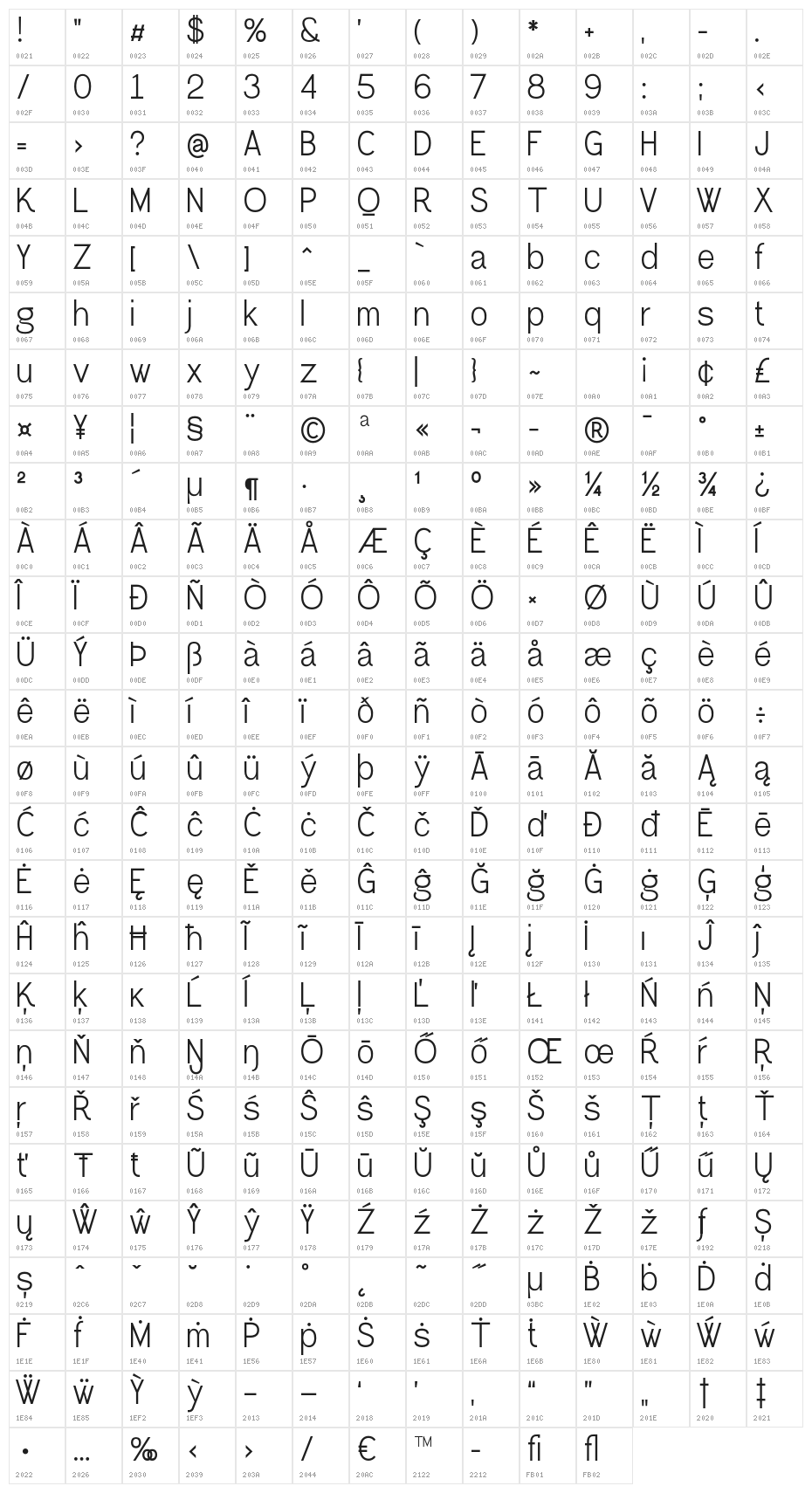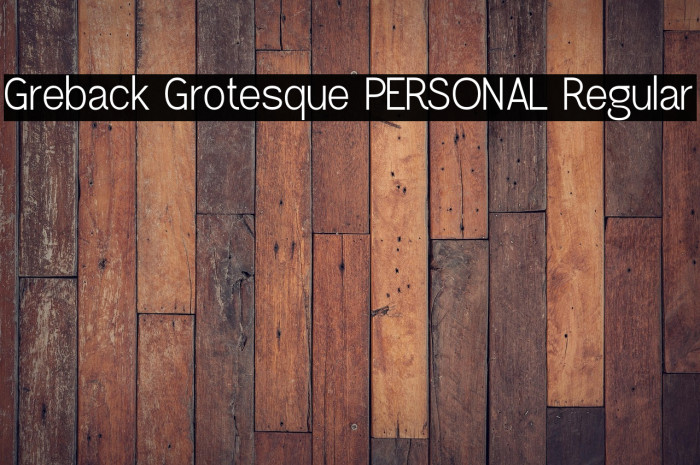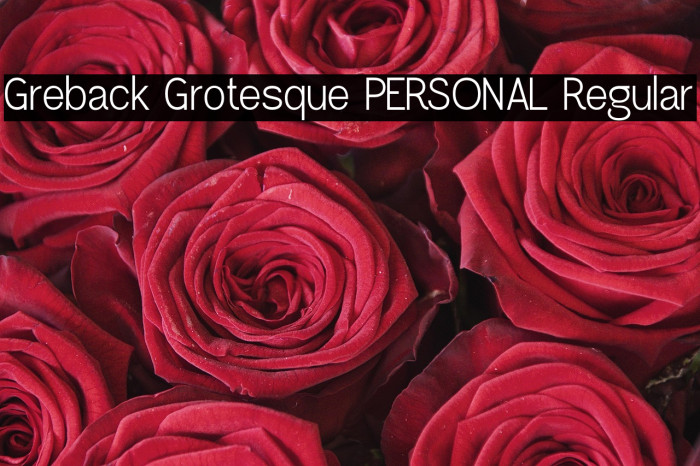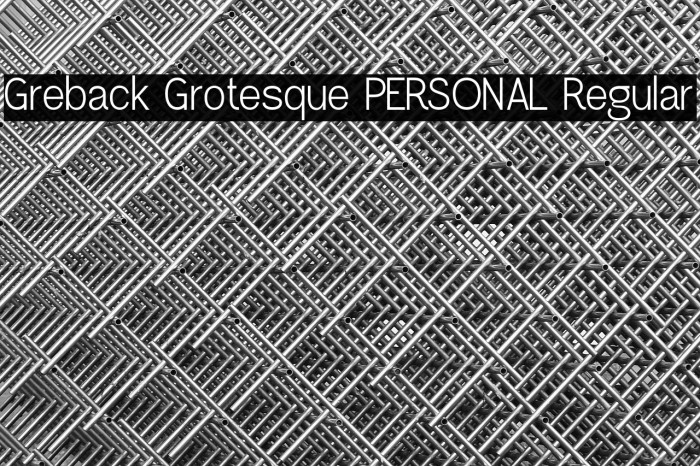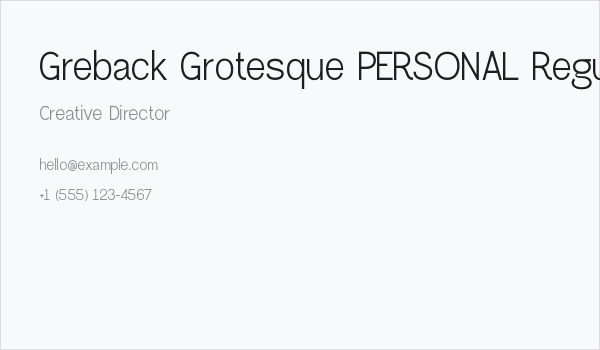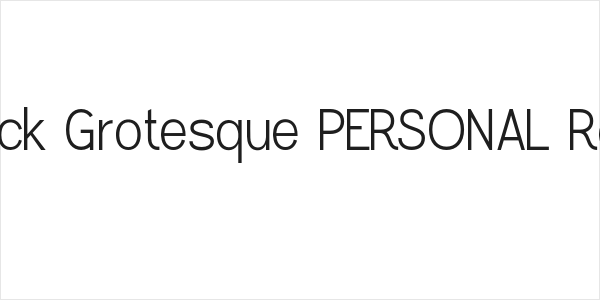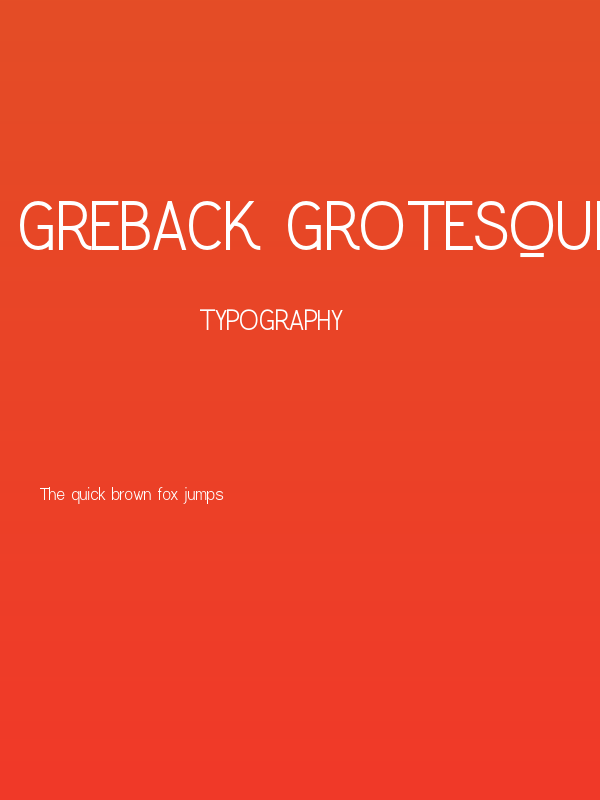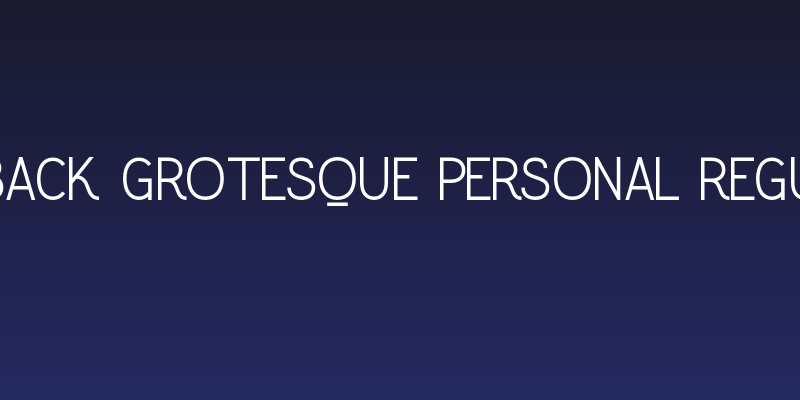
Greback Grotesque PERSONAL Regular Font
Greback Grotesque PERSONAL Regular Description
This typeface features a clean and modern sans-serif design, characterized by its geometric shapes and uniform stroke widths. The uppercase letters are bold and assertive, while the lowercase letters maintain a balanced and approachable appearance. The numerals are clear and legible, making them suitable for various applications. Special characters are included, enhancing the font's versatility. The overall design is sleek and contemporary, making it ideal for projects that require a professional and polished look.